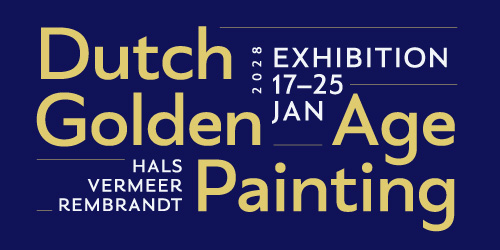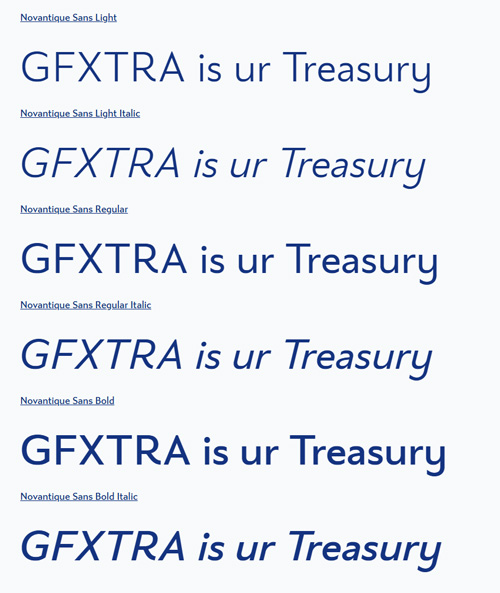
Novantique Sans - 6 Styles Font Family
- Novantique is a captivating collection of four distinct yet visually related families. The 22 styles together — Sans, Script, Serif Display, and Serif — represent elegance and modernity. All are ideal for creating an indelible solution for a richly layered editorial. Used individually or in combination, these typefaces were designed to grace your front covers, headlines, sections, ledes, text, and bylines. Try Novantique; the opportunities for experimentation are endlessly enticing.